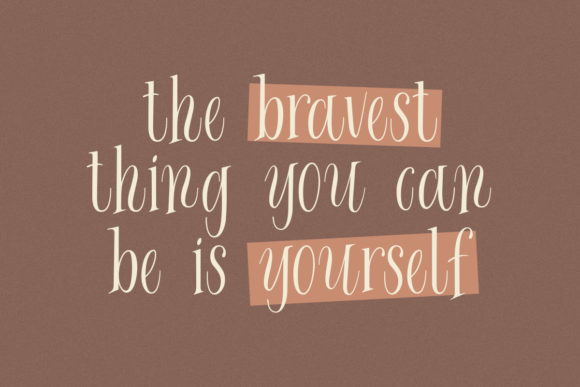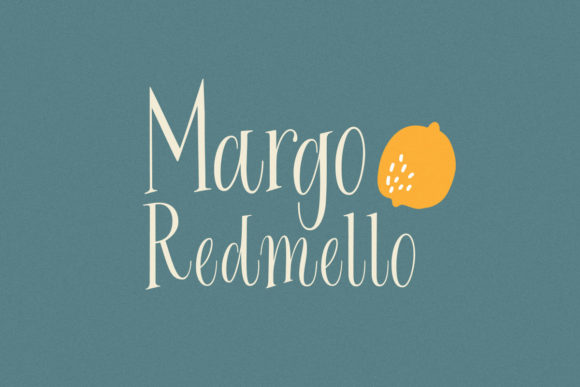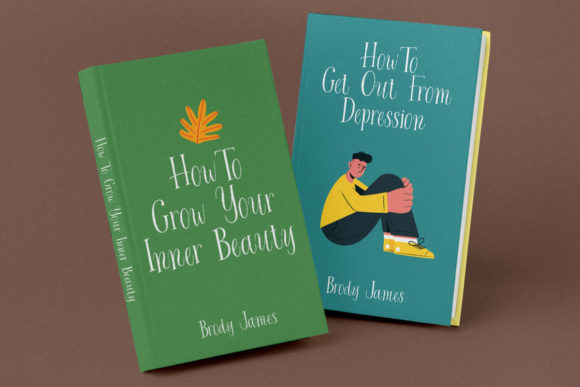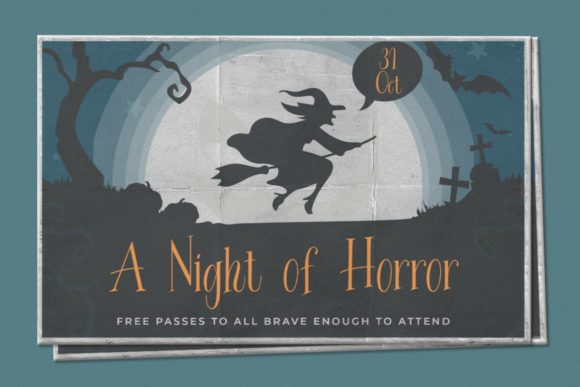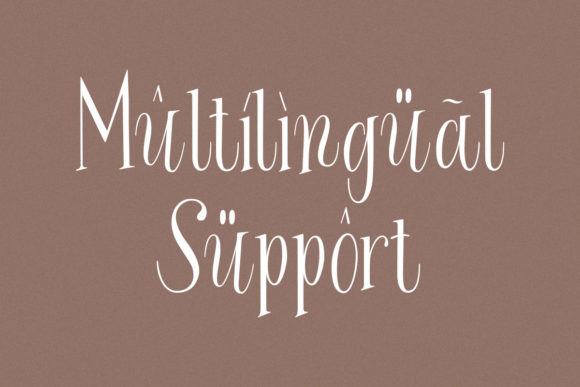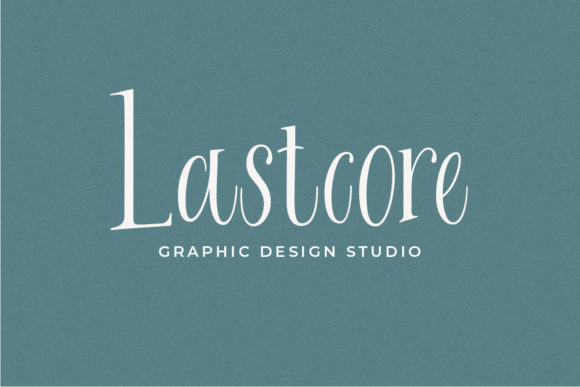
Unlock the Magic of the Evening River Font
As a designer, there’s nothing quite like the thrill of stumbling upon the perfect font to bring your creative vision to life. You’re brainstorming ideas for a client’s special project, and suddenly, the perfect typography appears – like a gentle sunset on a summer evening. It’s moments like these that make all the hard work worth it.
Enter the Evening River Font, a charming serif font that’s designed to add a touch of elegance and sophistication to any design. Whether it’s a wedding invitation, a heartfelt thank-you card, or a business logo, this font is sure to make a lasting impression. For designers, the Evening River Font is a valuable addition to their toolkit, offering a unique and versatile way to add personality to their designs.
Evening River Font Key Features
- Font Family: Evening River Font is a beautiful, elegant script font designed for various typography applications.
- Unique Characteristics: Evening River Font features a unique blend of elegance and sophistication, making it perfect for wedding invitations, luxury branding, and high-end publications.
Evening River Font Review
Overall, I think the Evening River Font has some lovely qualities that make it a great addition to any project. ✨ Its elegant and refined feel is perfect for creating a sophisticated atmosphere, especially in designs related to water, relaxation, or evening themes. The subtle ripples and gentle curves give it a sense of movement and fluidity that’s really appealing.
The font also comes in a variety of weights, from light to bold, which makes it highly versatile and suitable for a wide range of applications, from body text to headlines. Additionally, the font is highly legible, making it easy to read even at small font sizes.
Limitsations
- ⚠️ The font may not be suitable for projects that require a bold, edgy, or playful feel, as its elegant nature may come across as too refined or sophisticated.
- ⚠️ The font may not be the best choice for small text or titles, as the delicate curves and lines may become lost or difficult to read at very small sizes.
Overall, I think the Evening River Font is a great choice for designers who want to create a sense of calmness and sophistication in their projects. While it may have some limitations, its unique character and high level of legibility make it a great addition to any font collection.
Tips and Tricks
To get the most out of the Evening River Font, try the following:
- Use it sparingly to add emphasis to key points or headings.
- Combine it with other fonts to create a unique and visually appealing design.
- Experiment with different font sizes and colors to create contrast and hierarchy.
The Evening River Font is perfect for:
- Formal event promotions and marketing materials.
- Book titles and author names.